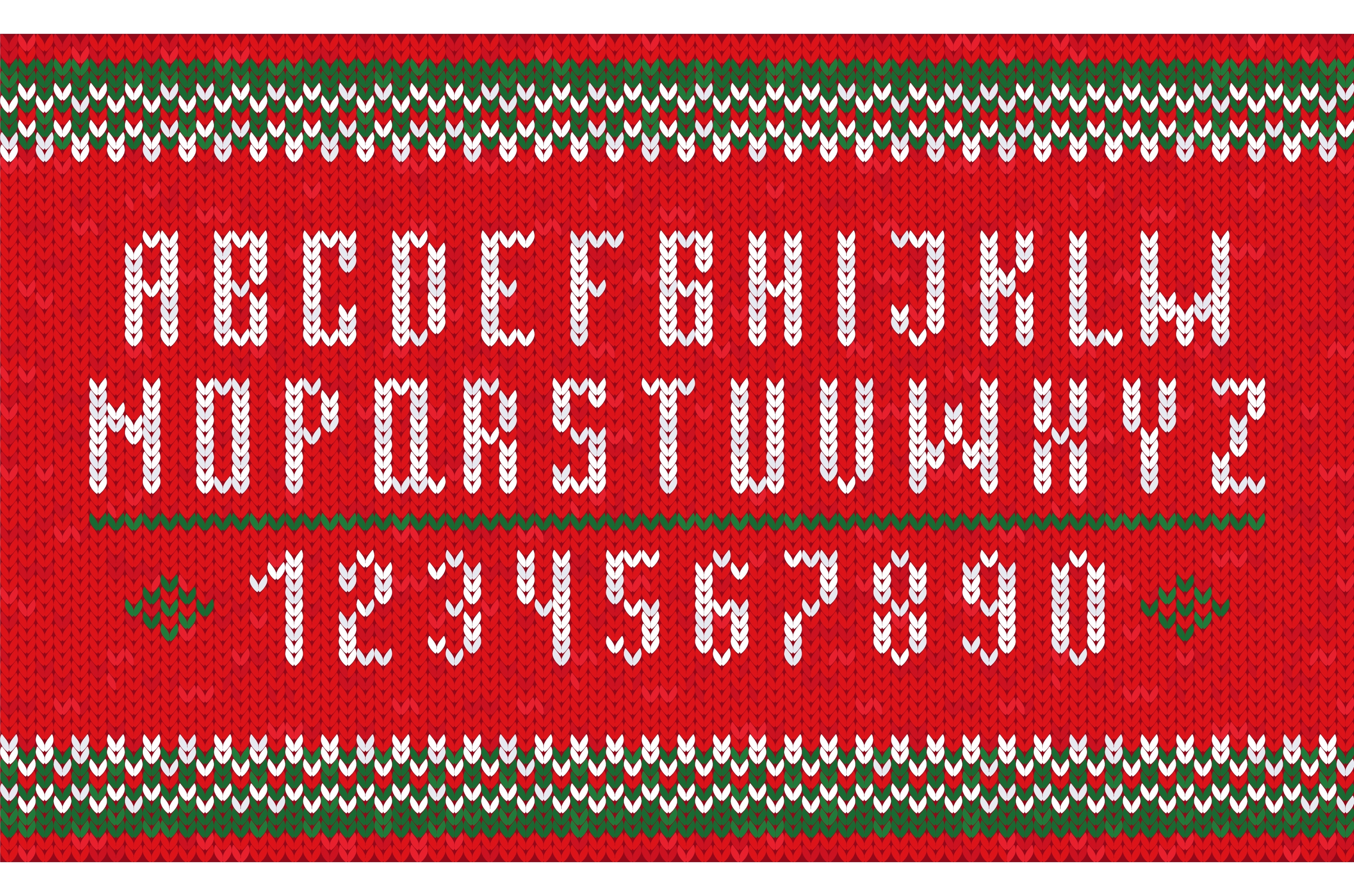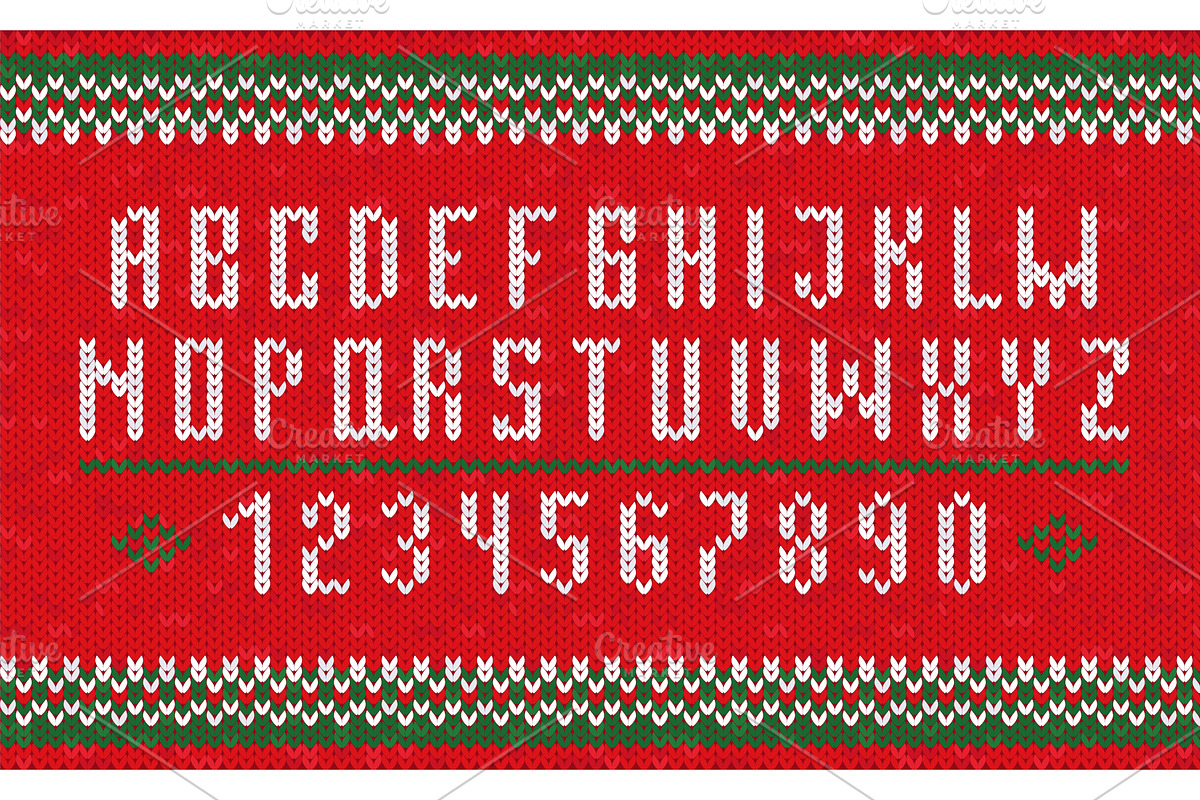
Ugly sweater style font. Knitted
Ugly sweater style font. Knitted letters and numbers, christmas holiday or winter design alphabet, new year warm cozy fabric, textile pattern seasonal decoration qualitative vector typography set